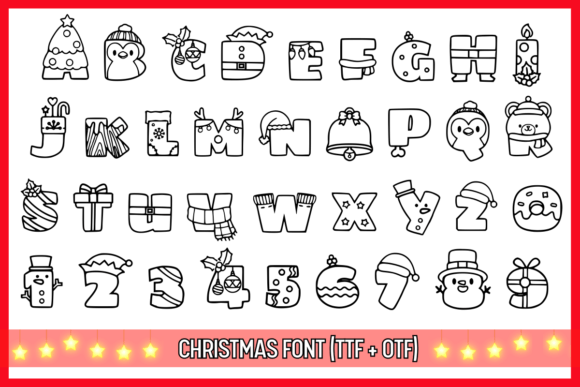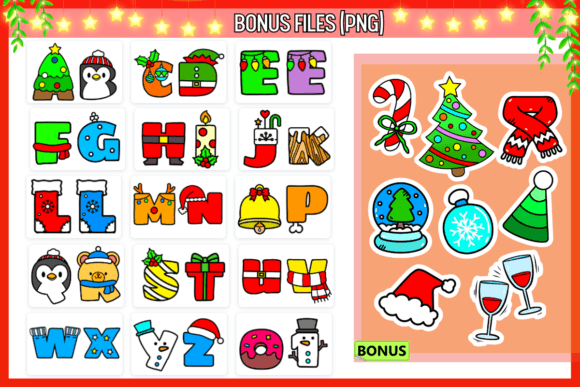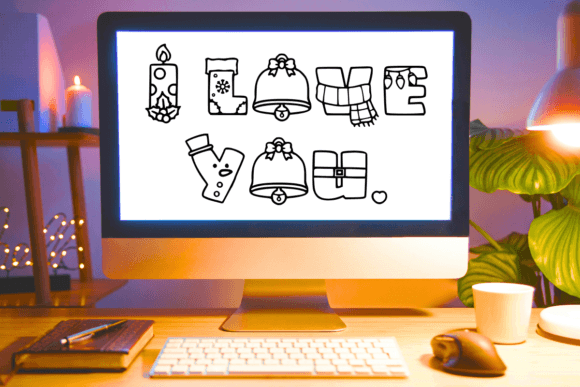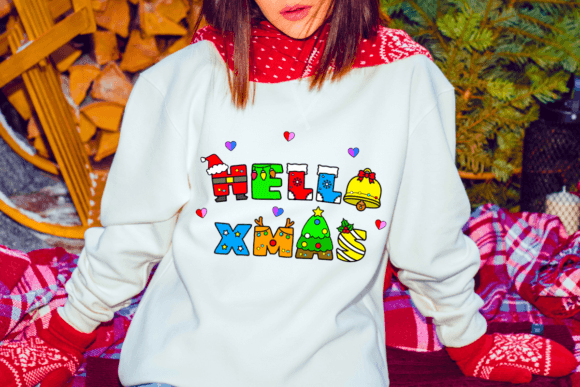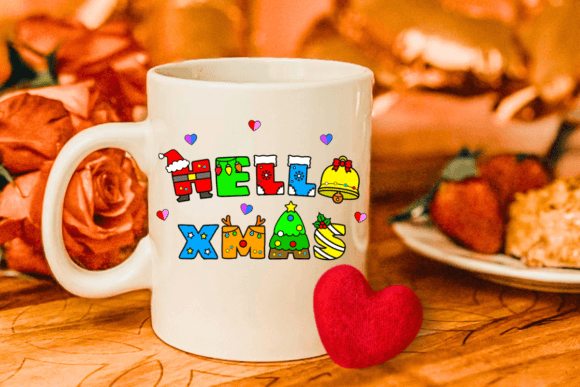
Get Ready to Deck the Halls with the Coziest Font of the Season
It’s that magical time of the year when creativity knows no bounds, and our imagination runs wild with festive ideas. Whether you’re designing holiday cards, gift tags, or social media posts, the spark of inspiration often strikes when you least expect it. For me, it was while sipping hot cocoa on a chilly winter morning, surrounded by twinkling lights and the soft hum of holiday music.
As I sat amidst the festive atmosphere, I stumbled upon the perfect companion for my creative endeavors – Hello Xmas Font. This sweet and cute decorative font is a game-changer for designers looking to add a touch of whimsy and charm to their projects. With its unique blend of elegance and playfulness, Hello Xmas Font is the perfect addition to your creative toolkit, guaranteed to bring a smile to your face and delight your audience.
Hello Xmas Font Key Features
- Font Family: Hello Xmas Font is a unique, festive font family designed specifically for Christmas-themed projects.
- Unique Characteristics: Features a playful, handwritten style with intricate details, making it perfect for adding a touch of whimsy to holiday designs.
- Characters: Includes a wide range of characters, including uppercase and lowercase letters, numbers, punctuation, and special characters.
Hello Xmas Font Review
When I first laid eyes on the Hello Xmas Font, I was immediately drawn to its festive and playful vibe ✨. The font’s combination of bold lines and rounded edges gives it a charming, handwritten feel that’s perfect for holiday-themed projects. The font’s characters are also well-spaced, making it easy to read and use in a variety of contexts.
One of the standout features of the Hello Xmas Font is its versatility ✨. The font includes a range of punctuation marks, numbers, and special characters, making it easy to create visually appealing holiday messages and designs. I also appreciate the font’s compatibility with a range of software and operating systems, including Adobe Creative Cloud and Google Fonts.
- ⚠️ The font may not be suitable for formal or professional applications, given its playful and festive nature.
- ⚠️ Some users may find the font’s characters to be slightly uneven or inconsistent, which can be distracting in certain contexts.
- ⚠️ The font does not include any language-specific characters or support for non-English languages.
Overall, I think the Hello Xmas Font is a great choice for designers and artists looking to add a festive touch to their holiday projects ✨. While it may have some limitations, the font’s charm and versatility make it a valuable addition to any design toolkit.
Getting the Most Out of the Hello Xmas Font
To get the most out of the Hello Xmas Font, consider the following tips:
- Use it in combination with bold or italic text for emphasis.
- Use it in headings or titles to create a festive atmosphere.
The Hello Xmas Font is ideal for:
- Christmas and holiday-themed designs.
- Winter or winter-themed designs.
- Children’s party invitations or decorations.